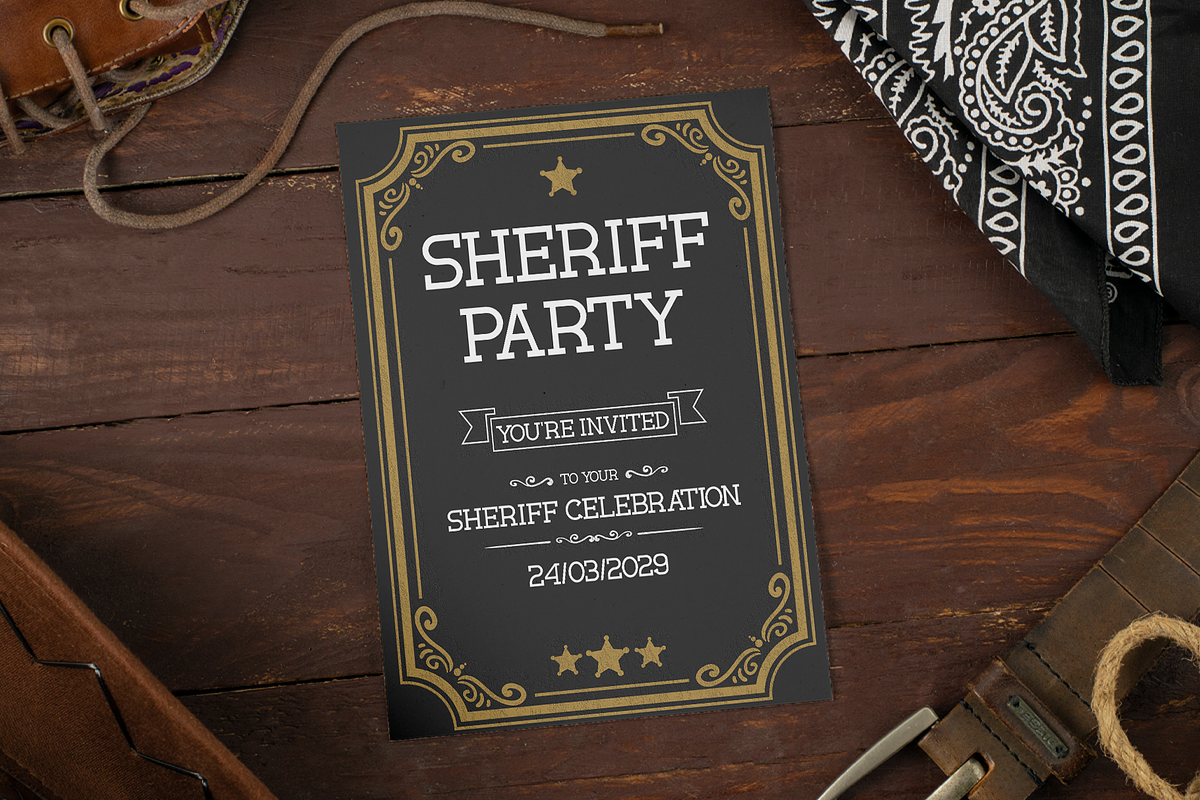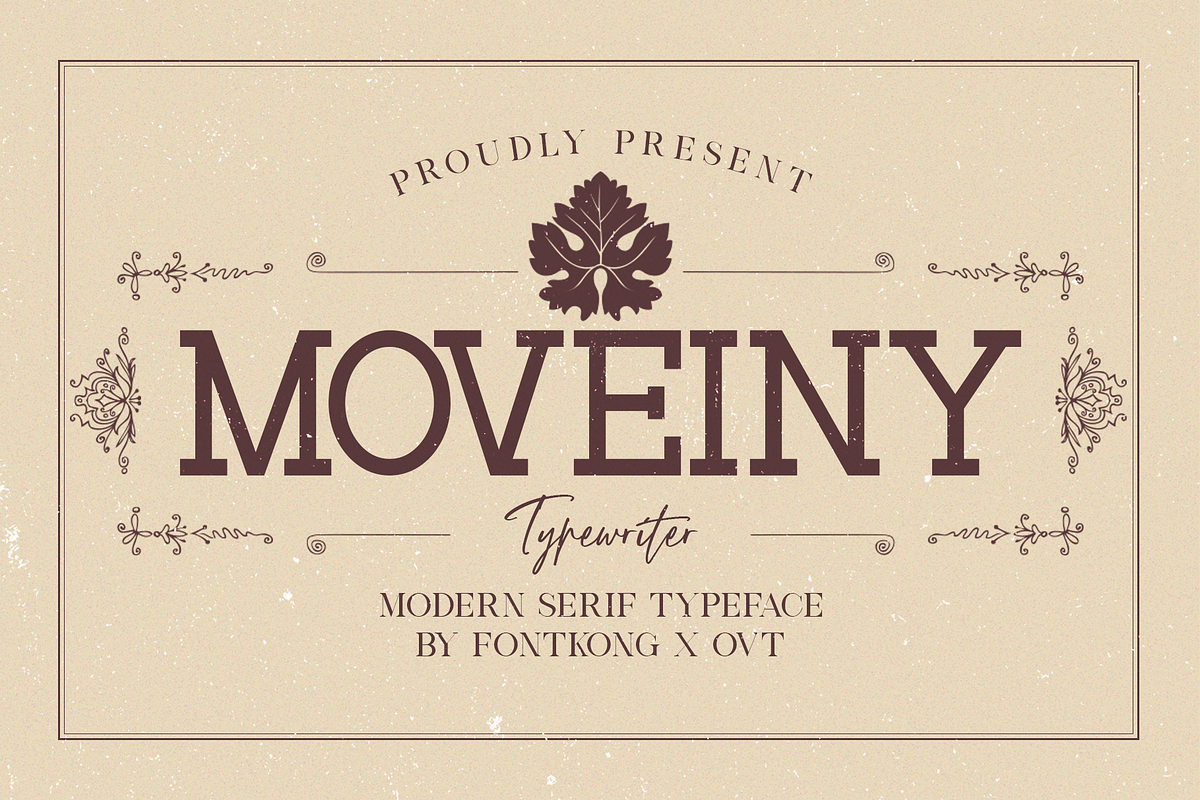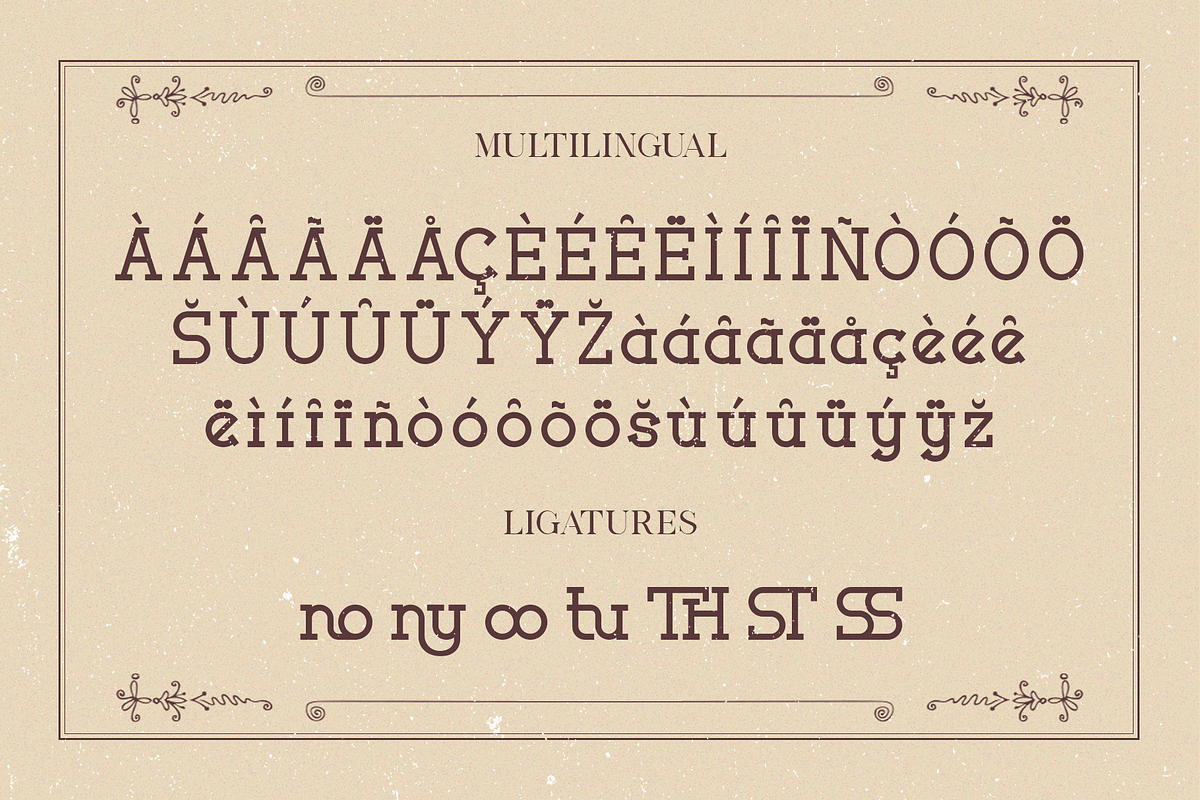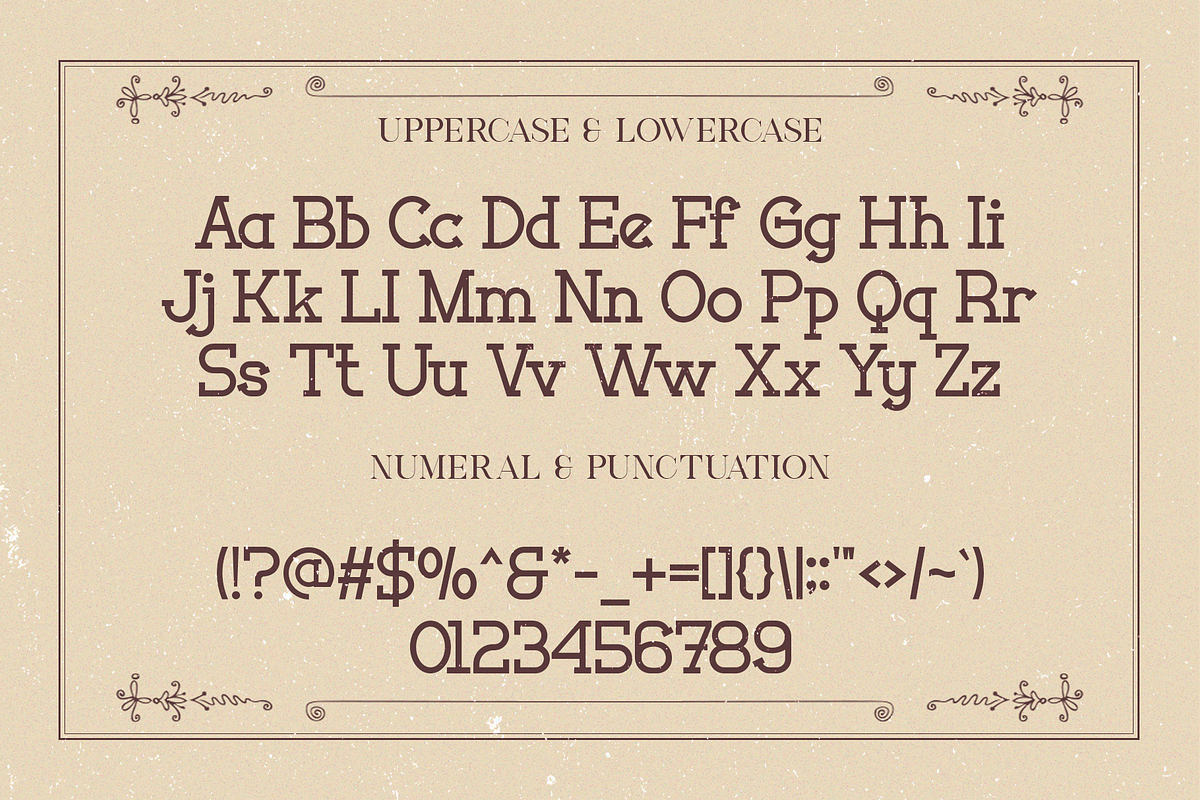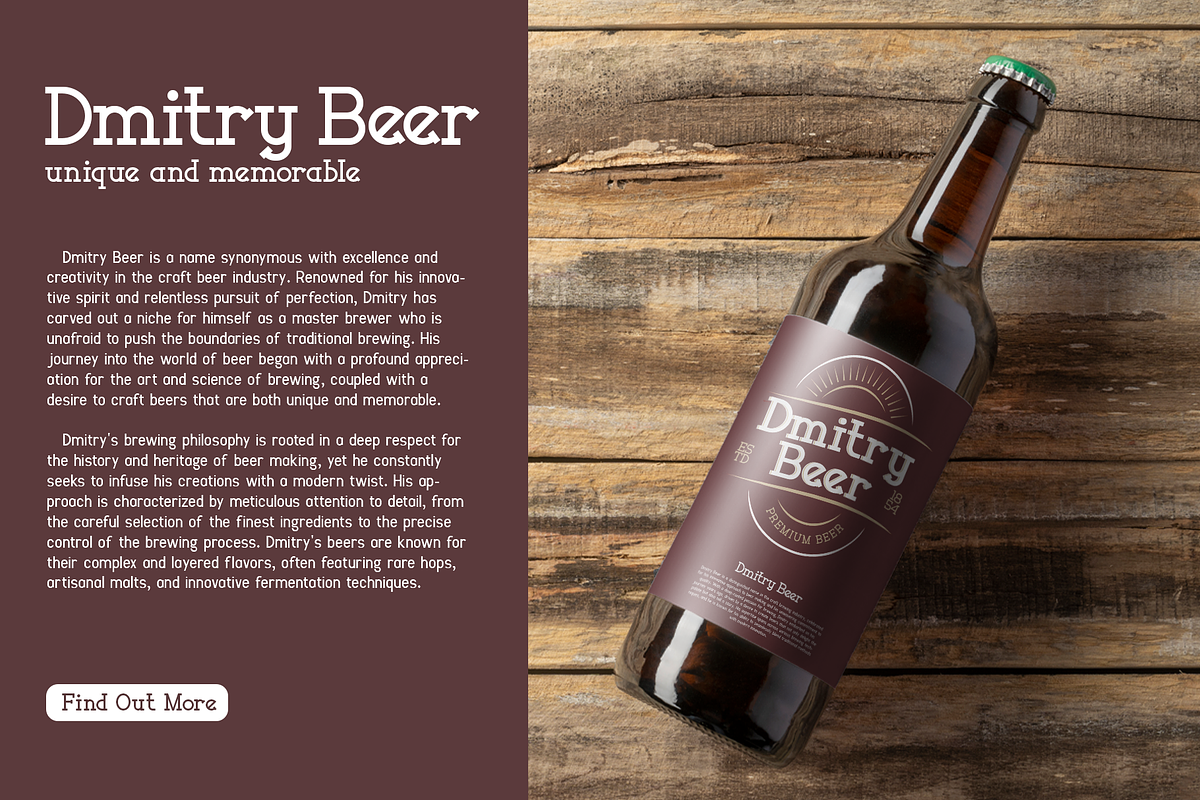
Moveiny - A Modern Serif Typeface
Moveiny is a sophisticated and stylish modern serif typeface designed to bring a touch of elegance and professionalism to your design projects. With its sleek lines and contemporary letterforms, Moveiny is perfect for high-end branding, elegant editorials, professional business cards, and refined invitations. This font seamlessly blends classic serif sophistication with modern design elements, ensuring your work stands out with distinction and style.
Crafted with precision, Moveiny features clean and well-defined characters that offer excellent readability and visual harmony. Its versatile design makes it ideal for both headlines and body text, providing a cohesive and polished appearance across all your visual communications. The font’s adaptability allows it to integrate seamlessly into various design contexts, from digital screens to printed materials, making it a valuable asset for any designer aiming to create sophisticated and impactful visuals.
Elevate your design projects with Moveiny, a font that embodies the perfect blend of tradition and modernity. Its unique style and adaptability make it an essential addition to any designer’s toolkit for creating elegant and professional designs. Enhance your work with Moveiny and experience the beauty of modern serif typography.